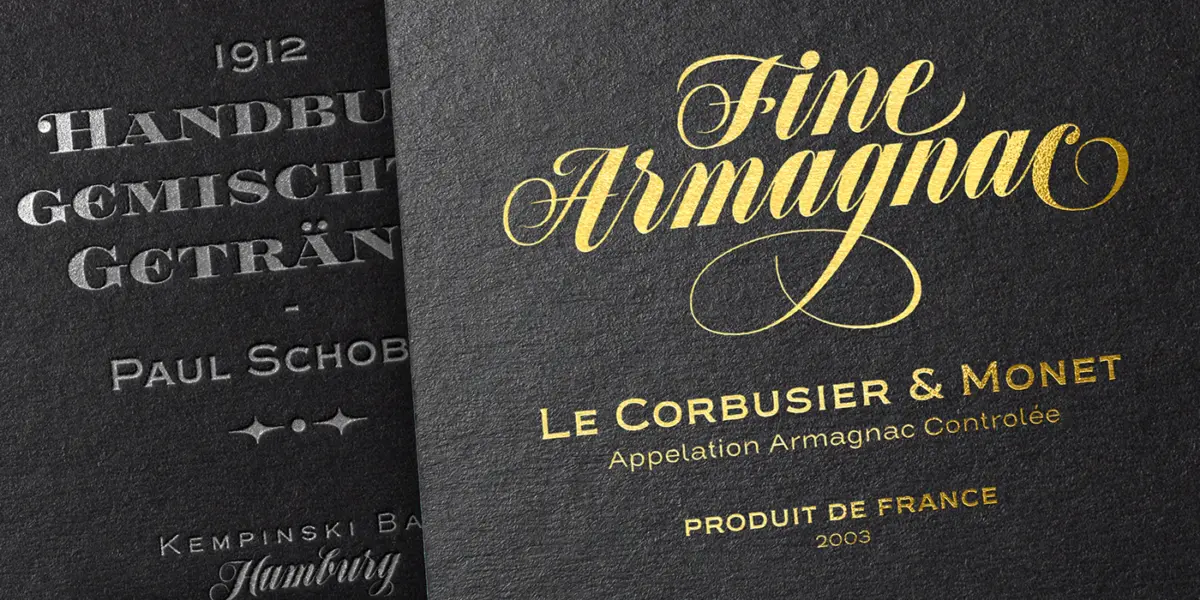
Expanding Horizons in Digital Typography: A Comprehensive Overview of the Latest Font Library Additions
Introduction and Main Facts
In the rapidly evolving landscape of digital design, typography serves as the foundational voice of visual communication. Whether establishing brand identity, crafting immersive editorial layouts, or designing intuitive user interfaces, the choice of typeface dictates tone, readability, and emotional resonance. Recognizing this imperative, the typographic curation team has announced a sprawling, diverse expansion of its digital font library, introducing an array of meticulously crafted typefaces, extensive language supports, and dynamic new typographic systems.
This month’s rollout is defined by its remarkable breadth and attention to nuanced craftsmanship. Highlights of the latest update include rare Cyrillic script additions from ParaType, expressive calligraphic offerings and marketplace integrations from Sudtipos, a Victorian-meets-modern adventure from Fort Foundry, a geohumanist powerhouse from Typefolio, and the massive integration of IBM’s iconic typographic superfamily, Plex. Furthermore, platform subscribers will benefit from structural licensing updates, including the migration of nearly 100 Sudtipos fonts directly into the core Creative Cloud plan library.
This comprehensive report explores the chronological rollout of these typefaces, analyzes the foundational data and design philosophies behind each release, reviews official foundry perspectives, and examines the broader implications of these additions for professional designers and the typography industry at large.
Chronology of the Typographic Rollout
The integration of new typographic assets into a major digital library is a deliberate, multi-stage process involving technical validation, OpenType feature testing, and cross-platform rendering optimization. The latest collection was systematically deployed across the platform over a standard monthly release cycle, punctuated by strategic partnership integrations.
• Early Month – ParaType’s Cyrillic Expansion: The rollout commenced with the introduction of specialized script families tailored for Cyrillic users. Recognizing a historical scarcity of high-quality, authentic handwritten scripts supporting Cyrillic characters, the curation team fast-tracked the integration of ParaType’s latest offerings.
• Mid-Month – Sudtipos Marketplace Additions and Library Migration: The focus then shifted toward South American foundry Sudtipos. Alongside the marketplace debut of new expressive calligraphic works, a massive logistical update took place, moving approximately 100 previously paid-add-on fonts directly into the inclusive subscription library.
• Late-Month – Specialty and Structural Releases: The final phase of the monthly deployment introduced niche and monumental system-level typefaces. This included the adventurous Victorian flared-serif Shackleton by Fort Foundry, Marconi Lima’s geohumanist masterpiece Obvia from Typefolio, and the sweeping corporate-to-open-source design system, IBM Plex.
Supporting Data, Design Philosophies, and Foundry Deep-Dives
Each foundry represented in this month’s update brings a distinct cultural background, aesthetic philosophy, and technical rigor to the library. Below is a detailed examination of the new additions, categorized by their respective creators.
ParaType: Bridging the Cyrillic Script Gap
Historically, designers working with Cyrillic alphabets have faced a distinct shortage of natural, fluid, handwritten script fonts. Traditional digital typefaces often force a rigid, disconnected aesthetic onto Cyrillic letterforms, stripping them of organic warmth. ParaType addressed this challenge head-on with two standout releases designed by prominent typographers.
1. Kapelka (Designed by Zakhar Yaschin): Yaschin approached the design of Kapelka by studying the physical dynamics of writing with a soft, pointed brush. The resulting typeface captures the subtle pressure variations, ink pooling, and organic stroke modulation characteristic of physical brushwork. Its stylish, approachable demeanor makes it an exceptional choice for friendly editorial headlines, lifestyle branding, and tactile packaging design where human touch is paramount.
2. Bowman (Designed by Alexandra Korolkova): For projects demanding an even more casual, immediate feel, Korolkova’s Bowman offers a distinct alternative. Modeled after the brisk, confident strokes of a classic marker, Bowman injects a sense of playful spontaneity into layouts. Its inclusion broadens the stylistic spectrum for Cyrillic typesetting, proving that localized scripts can be both technically robust and visually vanguard.
Sudtipos: Expressive Calligraphy and Massive Library Value
Hailing from Argentina, Sudtipos is internationally renowned for capturing the lively spirit of physical handwriting and translating it into digital masterpieces. The latest update integrates both fresh creations and a substantial reorganization of their catalog.
1. Envelove (Designed by Yani Arabena): The act of writing with a traditional pointed nib is visually romantic, yet notoriously messy—frequently resulting in ink-stained fingers and ruined drafts. Yani Arabena successfully extracted the romance while eliminating the friction, channeling her own master-level pointed-nib calligraphy into Envelove. Available in the Marketplace, this script font is intensely expressive, dynamic, and spontaneous, making it ideal for wedding stationery, boutique branding, and emotive editorial pull-quotes.
2. Speakeasy: Also debuting in the Marketplace, Speakeasy is a versatile five-variation typographic suite designed to handle complex branding challenges. It features a gorgeous, flowing script alongside an all-caps wide "Modern" style complete with high-contrast serifs, and a complementary sans-serif companion.
3. The Sudtipos Migration: Beyond these new releases, the curation team integrated nearly 100 fonts from Sudtipos that were previously restricted to additional-purchase tiers. By folding these premium assets directly into the core Creative Cloud plan, subscribers gain immediate access to an expansive toolkit of award-winning scripts and display faces without incurring extra costs.
Fort Foundry: The Adventurous Spirit of Shackleton
Victorian-era typography is frequently stereotyped as overly ornate, stiff, and suffocatingly formal. Brian Brubaker of Fort Foundry subverts this historical trope entirely with Shackleton.
Named after legendary polar explorer Ernest Shackleton, the typeface is engineered for "stylish adventure." While it retains historical nods to late 19th-century display lettering, it eschews stodginess in favor of flared serifs that deliver a quirky, energetic edge. Crucially, Shackleton is built for modern digital utility, shipping in four distinct widths to grant layout artists unprecedented flexibility across responsive web designs and high-impact print posters.
Typefolio: Marconi Lima’s Geohumanist Obvia
Type hierarchy requires foundational typefaces that can scale from micro-copy to monumental display headers without losing legibility or character. Marconi Lima of Typefolio answered this demand with Obvia, a powerhouse family encompassing nine distinct weights.
Lima categorizes Obvia as a "geohumanist" typeface. This hybrid design philosophy bridges the gap between cold, geometric architecture and warm, organic humanism. The design process began with strict, distinctive square structural skeletons; however, Lima meticulously refined the micro-details, softening the corners and junctions. The resulting typeface preserves structural integrity while offering an inviting, friendly texture on screen and paper, making it an exceptional backbone for comprehensive corporate identities.
IBM: The Comprehensive Power of IBM Plex
Perhaps the most monumental addition to the library is not merely a font family, but a complete typographic ecosystem: IBM Plex.
The Typekit Blog | New in the library: Midsummer update
Developed internally by IBM in collaboration with the renowned foundry Bold Monday, Plex was created to replace decades of disparate corporate fonts with a single, globally cohesive typographic standard. It qualifies as a "superfamily" (or a full typographic system) due to its staggering breadth:
• Serif: Designed for traditional editorial weight and high-legibility body copy.
• Sans: Clean, neutral, and engineered for modern UI/UX design and corporate communications.
• Mono (Monospace): Tailored specifically for coding environments, data tables, and technical documentation.
• Hebrew (and other localized scripts): Ensuring cross-linguistic brand consistency.
Each sub-family within the Plex ecosystem features multiple weights and companion italics. The geometric construction of Plex is heavily influenced by IBM’s rich history of modernist design, marrying the engineered precision of the typewriter era with the fluid demands of contemporary screen rendering. Making this massive system available natively within the library represents a major victory for digital product designers and enterprise branding teams alike.
Official Responses and Industry Reception
The typographic community and foundry partners have expressed overwhelming enthusiasm regarding this month’s updates. Representatives from the platform curation team emphasized a continuous commitment to lowering barriers to high-end design assets.
"Our goal has always been to bridge the gap between world-class type foundries and the everyday creator," noted a senior library curator. "By working directly with masters like ParaType, Sudtipos, Fort Foundry, Typefolio, and global tech leaders like IBM, we are not just increasing our font count—we are enriching the global vocabulary of digital design. The migration of the Sudtipos catalog and the integration of the IBM Plex system represent our dedication to providing professional-grade tools within a unified subscription framework."
Foundry partners have similarly highlighted the mutual benefits of these expansive digital integrations. Designers from Sudtipos and Typefolio noted that placing their works into broader subscription ecosystems exposes their craft to a wider demographic of digital creators, fostering cross-pollination between traditional calligraphy and cutting-edge web design. Furthermore, enterprise design leads have praised the inclusion of IBM Plex, citing significant reductions in licensing friction when deploying multinational, multi-platform design systems.
Implications for Designers and the Typography Industry
The release of these diverse typographic assets carries several profound implications for the future of digital design, web development, and brand strategy:
1. Democratization of Specialized Scripts
The inclusion of high-end Cyrillic script families like Kapelka and Bowman signals a vital shift toward typographic equity for non-Latin writing systems. For too long, designers working in Cyrillic markets were underserved by digital foundries, frequently forced to rely on poorly kerned adaptations. By prioritizing native, brush- and marker-styled Cyrillic scripts, the library empowers regional designers to produce authentic, culturally resonant work without sacrificing aesthetic quality.
2. The Rise of the Typographic "System"
The proliferation of massive superfamilies like IBM Plex and heavily weighted families like Obvia underscores a broader industry trend: designers increasingly demand integrated systems over isolated fonts. In an era where brands must maintain absolute visual consistency across native mobile apps, responsive websites, physical packaging, and enterprise software, having a single font family that seamlessly transitions from monospace code to humanistic editorial body copy is an invaluable asset.
3. Blurring Lines Between Manual Craft and Digital Execution
Typefaces such as Envelove and Speakeasy highlight the enduring value of analog craftsmanship in a hyper-digital world. By capturing the messy, beautiful imperfections of pointed-nib calligraphy and translating them into robust OpenType fonts, foundries are injecting organic humanity back into digital interfaces. This counter-trend combats the sterile minimalism that has dominated web design for the past decade, encouraging a return to expressive, character-driven visual identities.
4. Economic Shifts in Software and Asset Licensing
The migration of nearly 100 Sudtipos fonts from an extra-purchase model into the standard Creative Cloud plan reflects evolving expectations in software subscriptions. Creators increasingly expect comprehensive access to premium tools within their base plans. This shift puts pressure on the broader design software industry to continually enhance value propositions, benefiting independent foundries through guaranteed platform exposure while giving users unprecedented creative firepower.
Conclusion
This month’s library expansion is a testament to the vibrant, dynamic state of contemporary typography. From the brushed Cyrillic warmth of ParaType to the calligraphic elegance of Sudtipos, the rugged charm of Fort Foundry, the geohumanist precision of Typefolio, and the institutional scale of IBM Plex, designers now have access to an exceptionally rich palette of visual voices. As these tools make their way into active projects across the globe, they will undoubtedly shape the aesthetic and functional contours of the next generation of digital media.